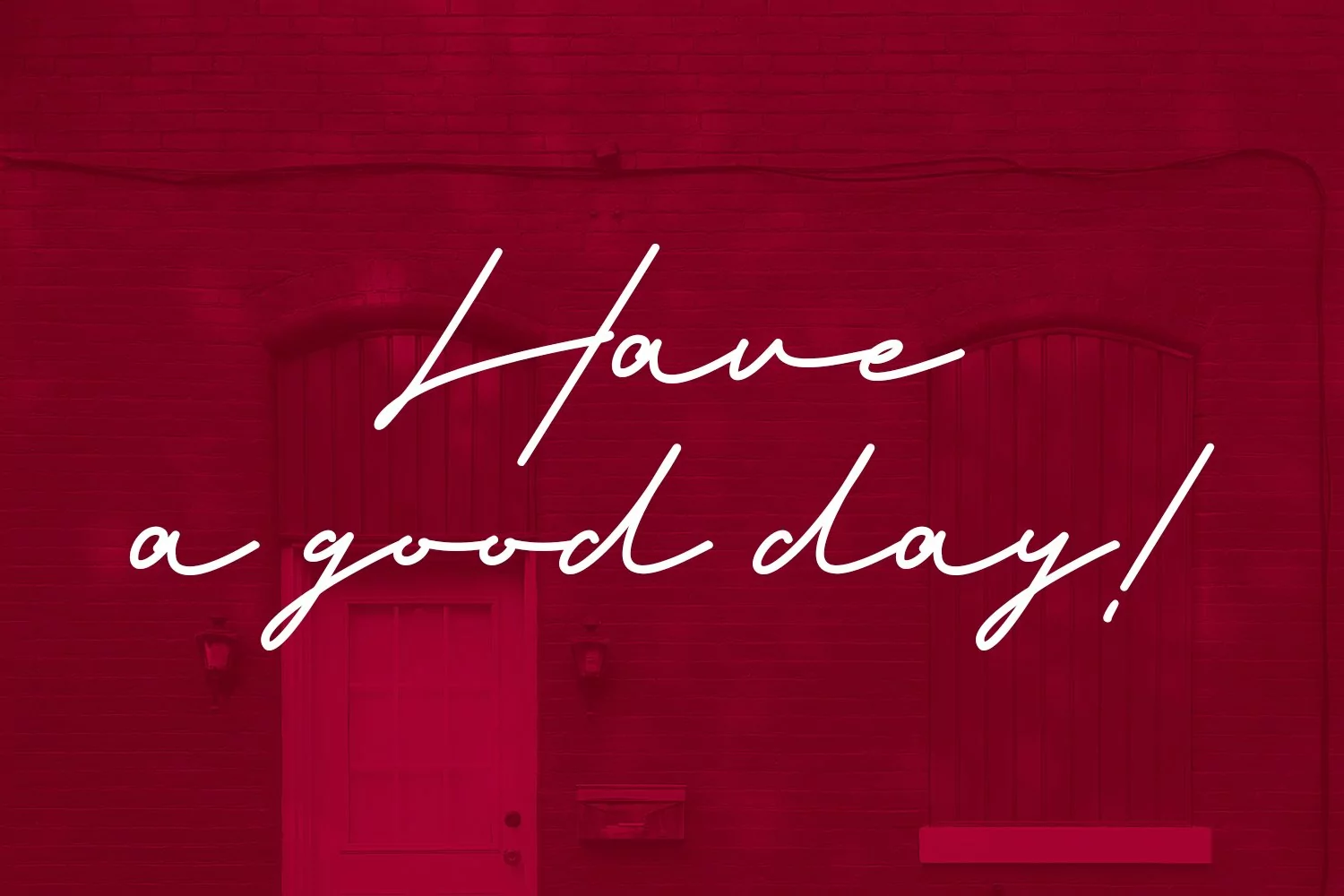
Red Bells Monoline Signature Script Font
Red Bells is a unique casual signature script font. With regular mono-line stroke, fun character with some of ligatures and extra swash. To give you an extra creative work. Red Bells font support multilingual more than 100+ language. This font is good for logo design, Social media, Movie Titles, Books Titles, a short text even a long text letter and good for your secondary text font with sans or serif. Make a stunning work with Red Bells font.